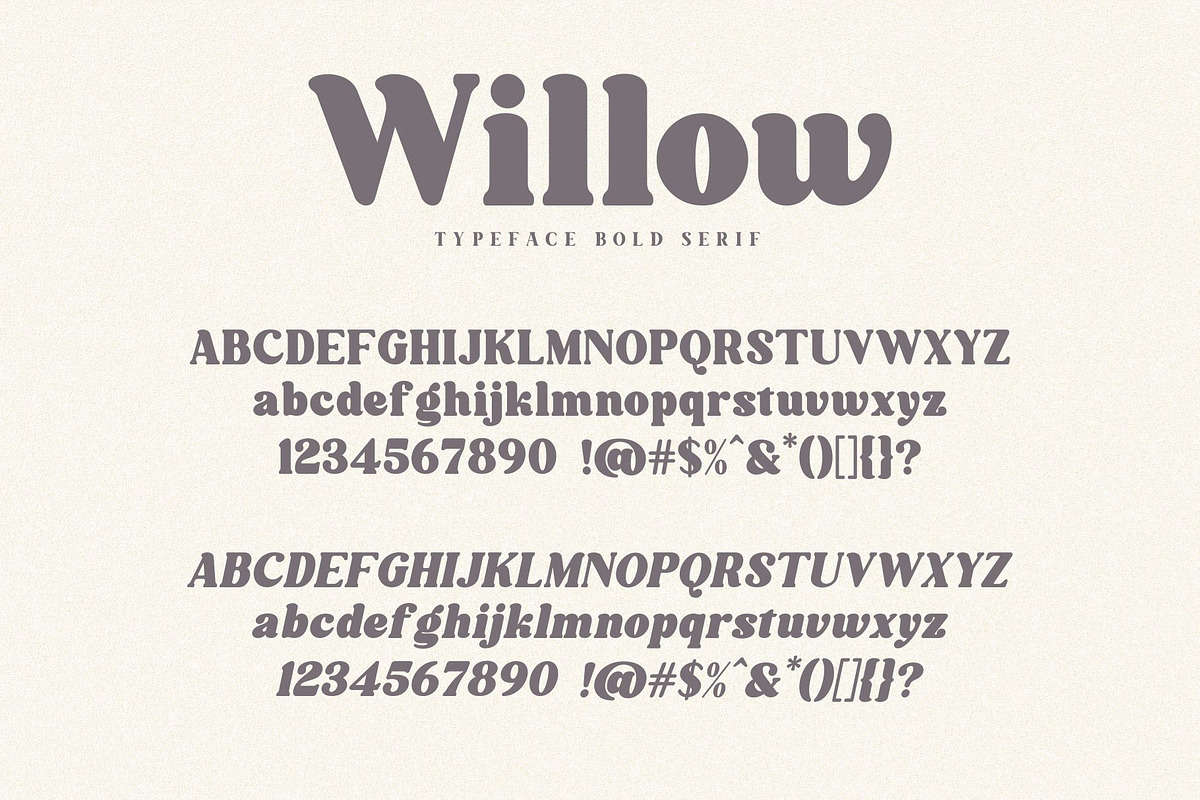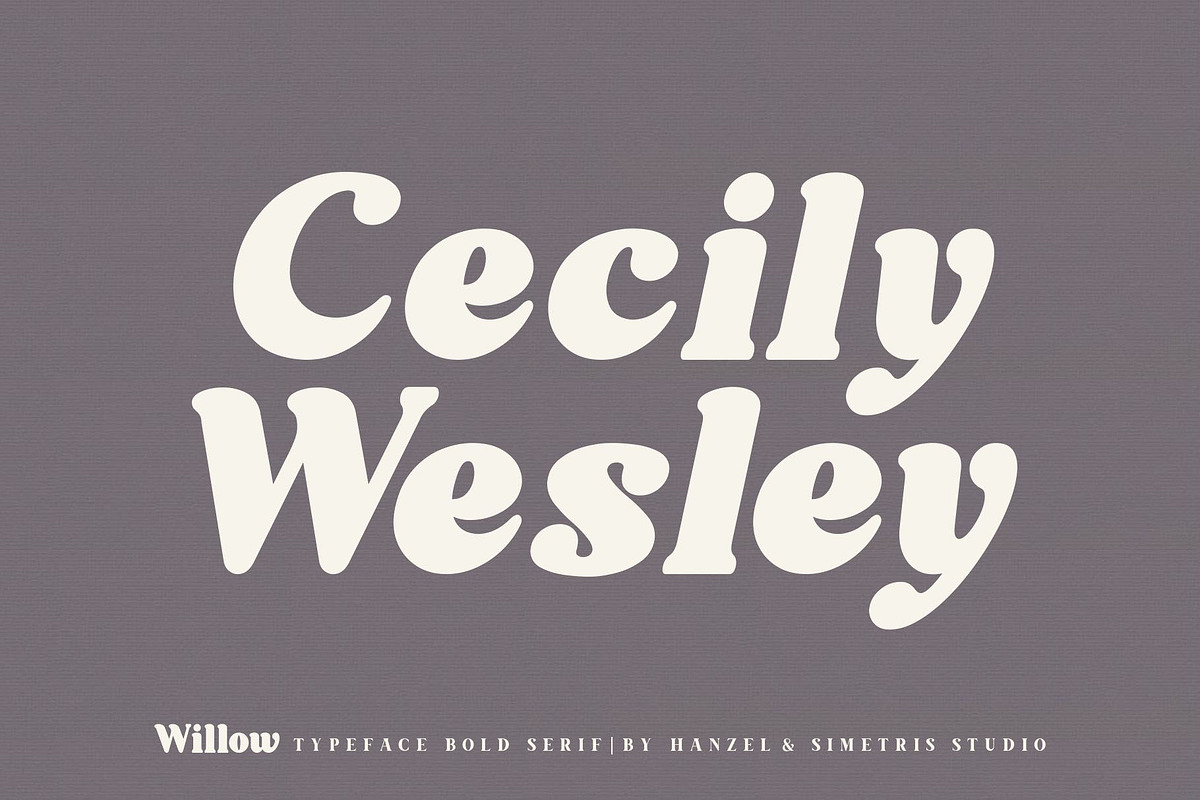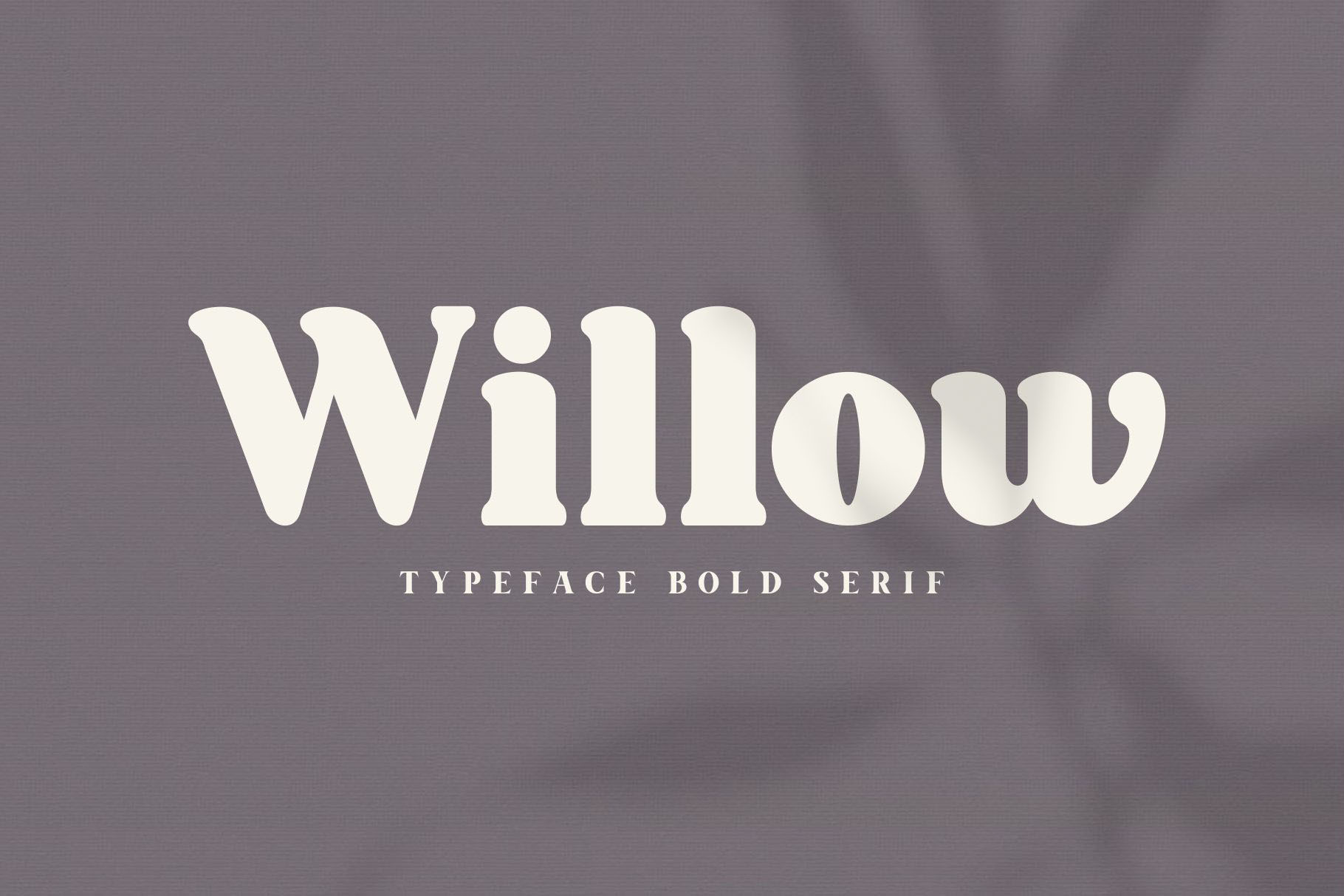
Willow. Typeface Bold Serif
Willow, is a wedge serif font that is sure to stand out! A little bit retro and a bit modern, Willow. is great for logos, editorial or web design. The unique sharp serifs mixed with thin strokes give off a bold mid century architectural vibe.
This modern serif typeface features serifs. Perfect for gorgeous logos & titles, The Willow will pair beautifully with many fonts and work well with whatever project you're working on.